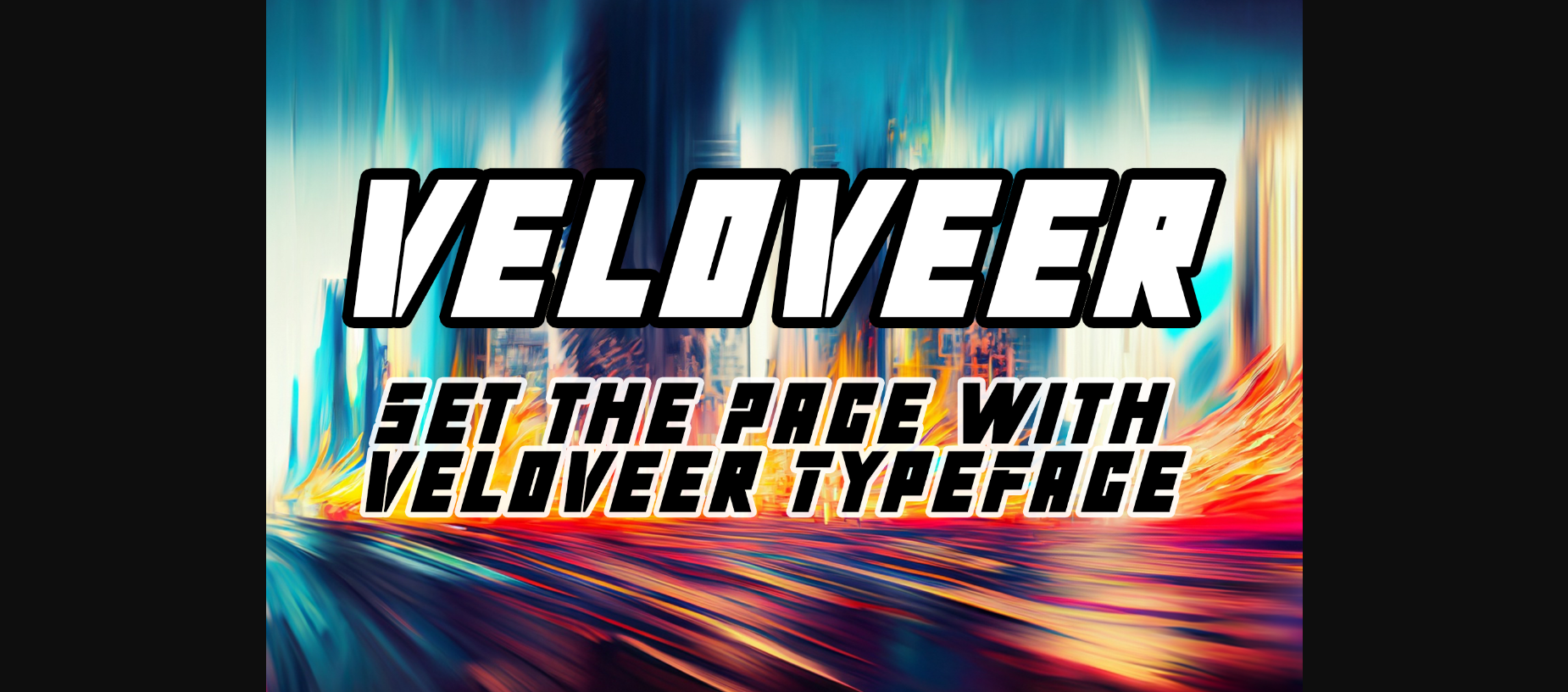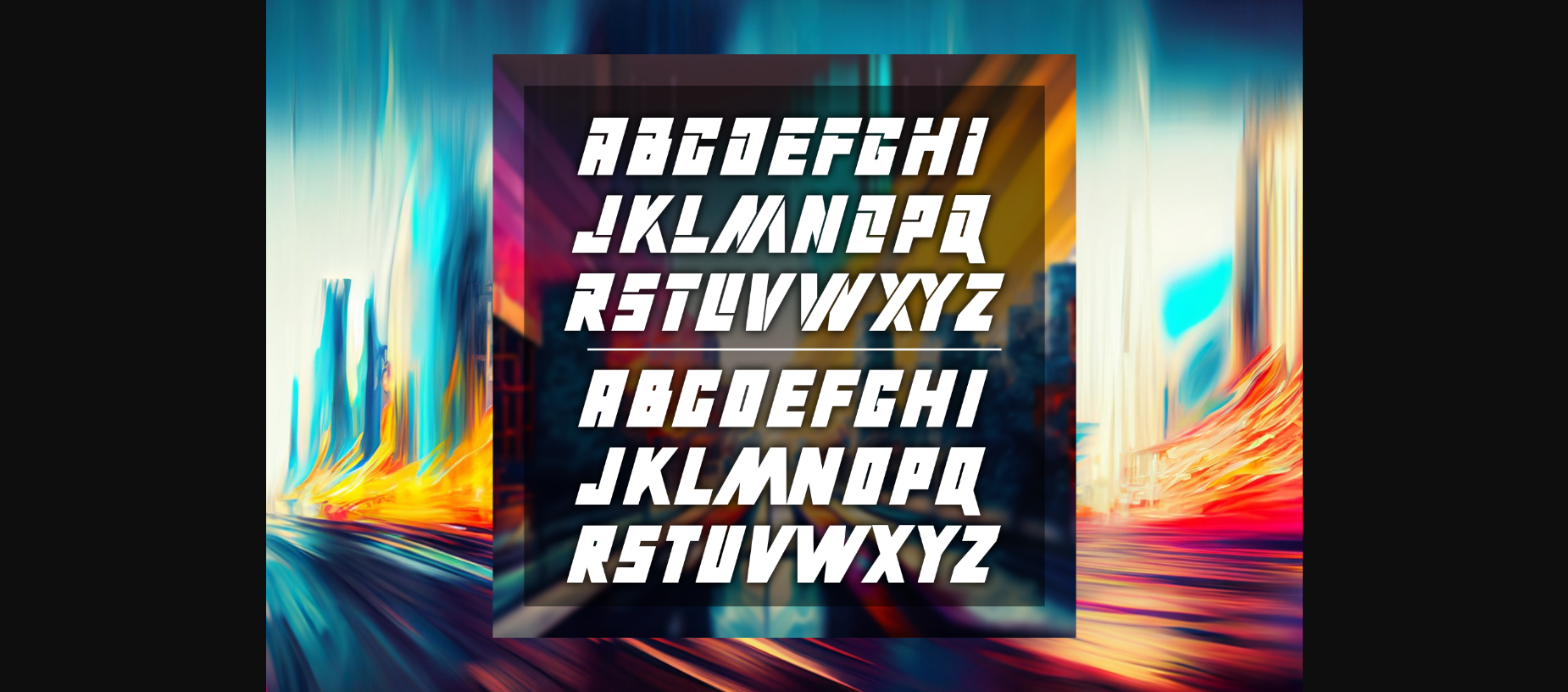
About Veloveer Font
VeloVeer is a dynamic typeface where velocity meets versatility. This meticulously crafted font, imbued with a sense of speed and forward movement, brings your words to life with energy, character, and readability. Ideal for logos, T-shirt designs, web design, and more.